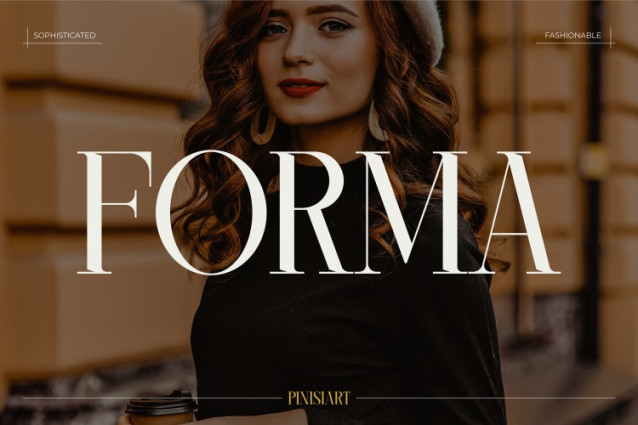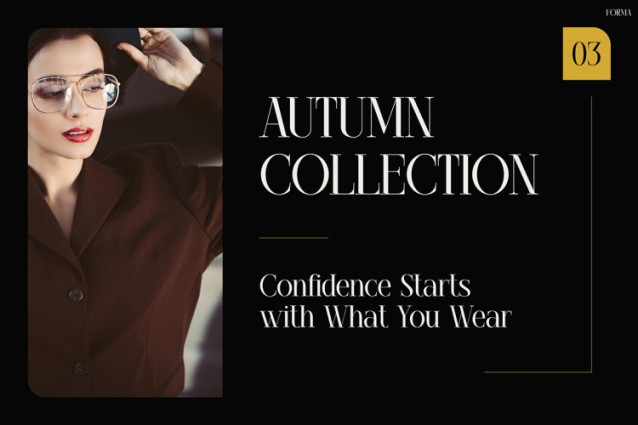
Forma Font
Forma Font is a blend of modern elegance and high-fashion style. Therefore, it is perfect for designers who want sophistication with impact. The refined serifs and balanced spacing make it stand out in both headlines and smaller text. Moreover, its clean lines and subtle details add a luxurious look. As a result, this font works beautifully in editorial spreads, Instagram promotions, and branding projects.
Why This Font is Unique
Forma merges contemporary minimalism with timeless luxury. In addition, it feels like a high-end magazine typeface but stays approachable for modern branding. The uppercase and lowercase letters are sharp and polished, which makes them ideal for professional use. Furthermore, proportional elegance ensures excellent legibility in both print and digital formats. The variety of weights and character options also gives designers more creative control. For example, you can create bold title covers, elegant product labels, or refined website headers with the same font family. Whether used for fashion catalogs, product ads, or social media layouts, Forma keeps its signature class intact and consistently delivers visual appeal.